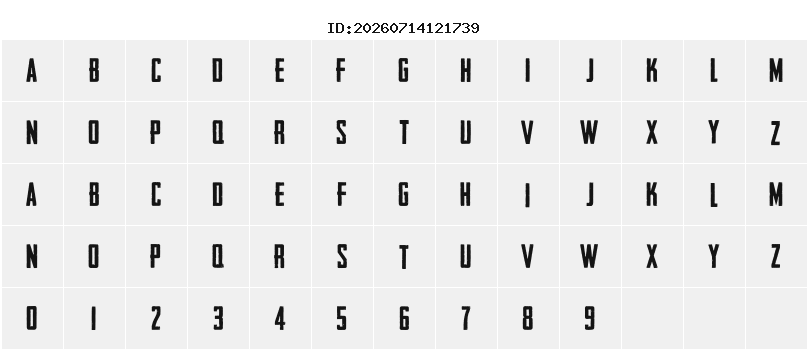
• Designer: Kevin Christopher
Headliner No. 45.ttf is a modern, elegant sans-serif font designed for ultimate readability and visual harmony. Perfect for branding, headlines, web design, and print materials.